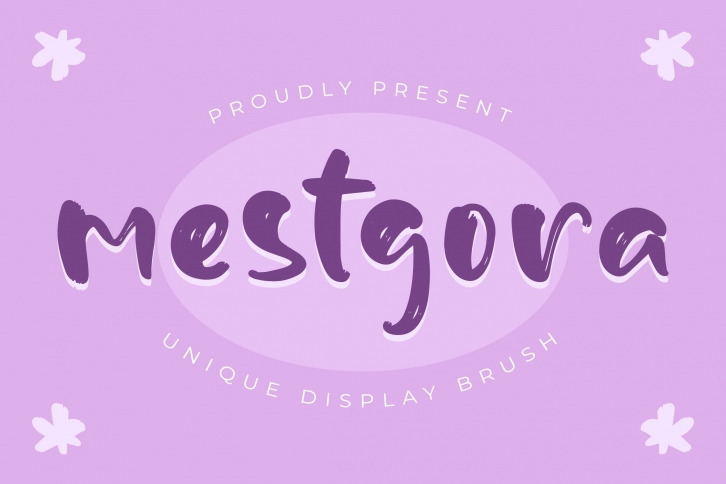
mestgora – Unique Display Brush , from Glorytype Studio, suitable for any projects such as: logos, branding projects, homeware designs, product packaging, mugs, quotes, posters, shopping bags, t-shirts, book covers, name card, invitation cards, greeting cards, label, photography, watermark, special events, and all your other lovely projects that need a beautiful script taste.